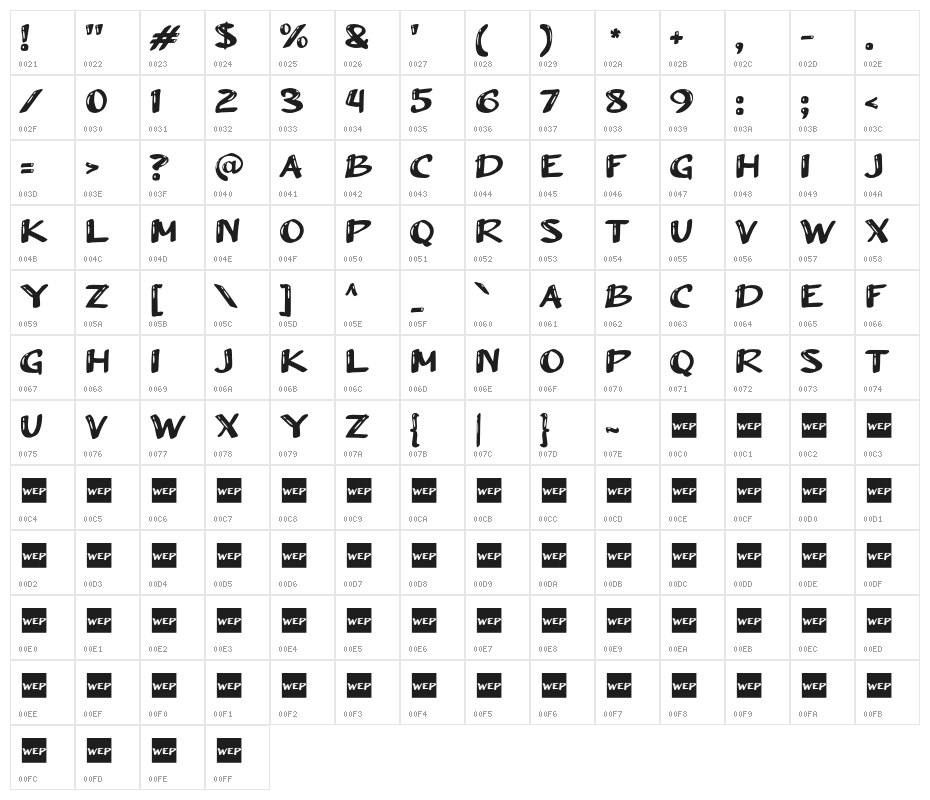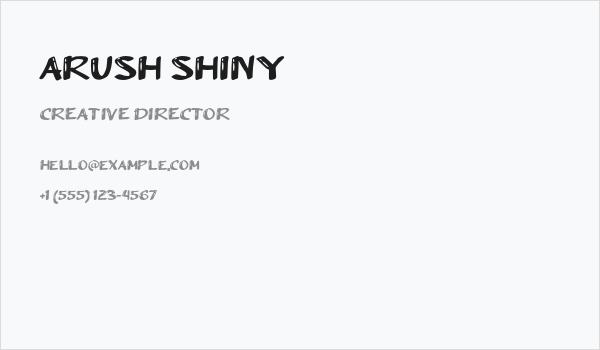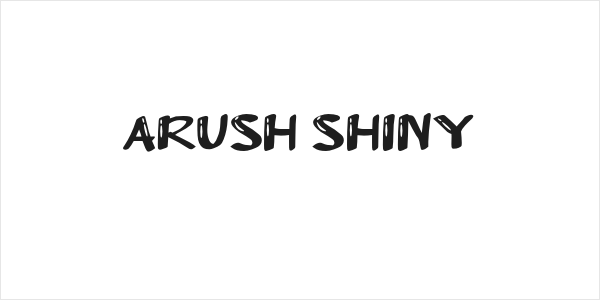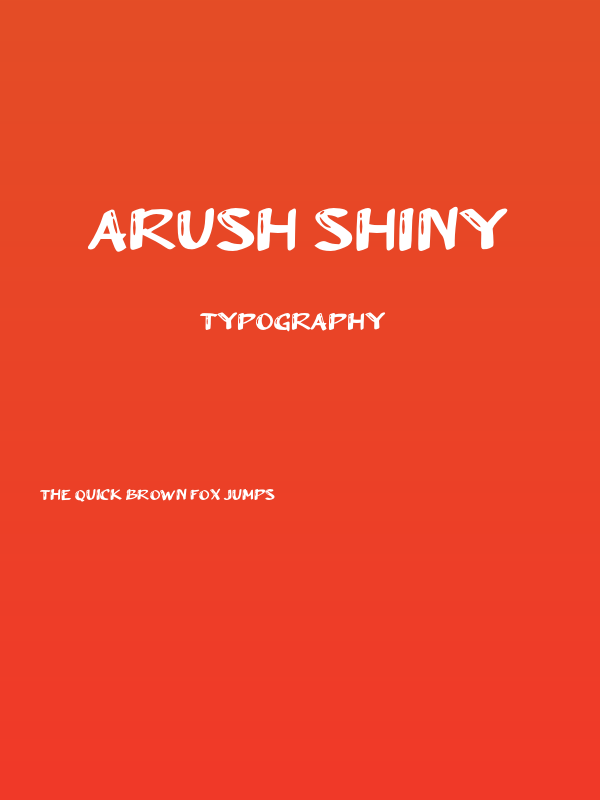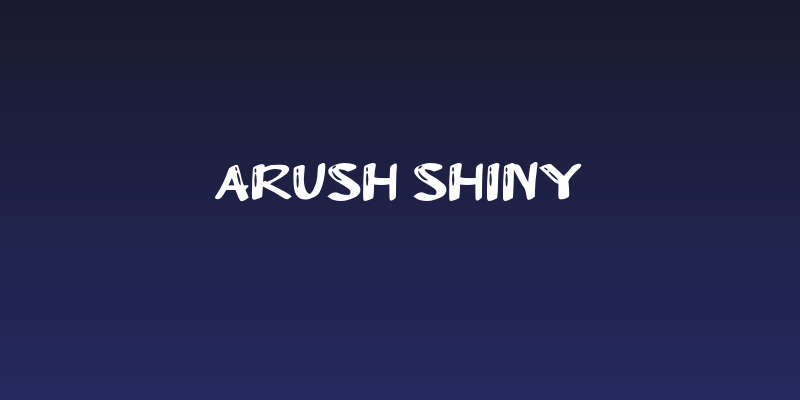
Arush Shiny Font
Arush Shiny Description
This font features a bold and dynamic style with a brush-like appearance, giving it a lively and energetic feel. The characters are slightly slanted, adding a sense of movement and fluidity. The strokes are thick and consistent, providing a strong visual impact. The uppercase and lowercase letters maintain a cohesive look, while the numbers and special characters are designed to match the overall aesthetic. This font's playful and artistic nature makes it suitable for creative projects that require a touch of personality and flair.
| Proposed Projects | Ideal for posters, branding, packaging, and any creative projects that need a lively and artistic touch. |